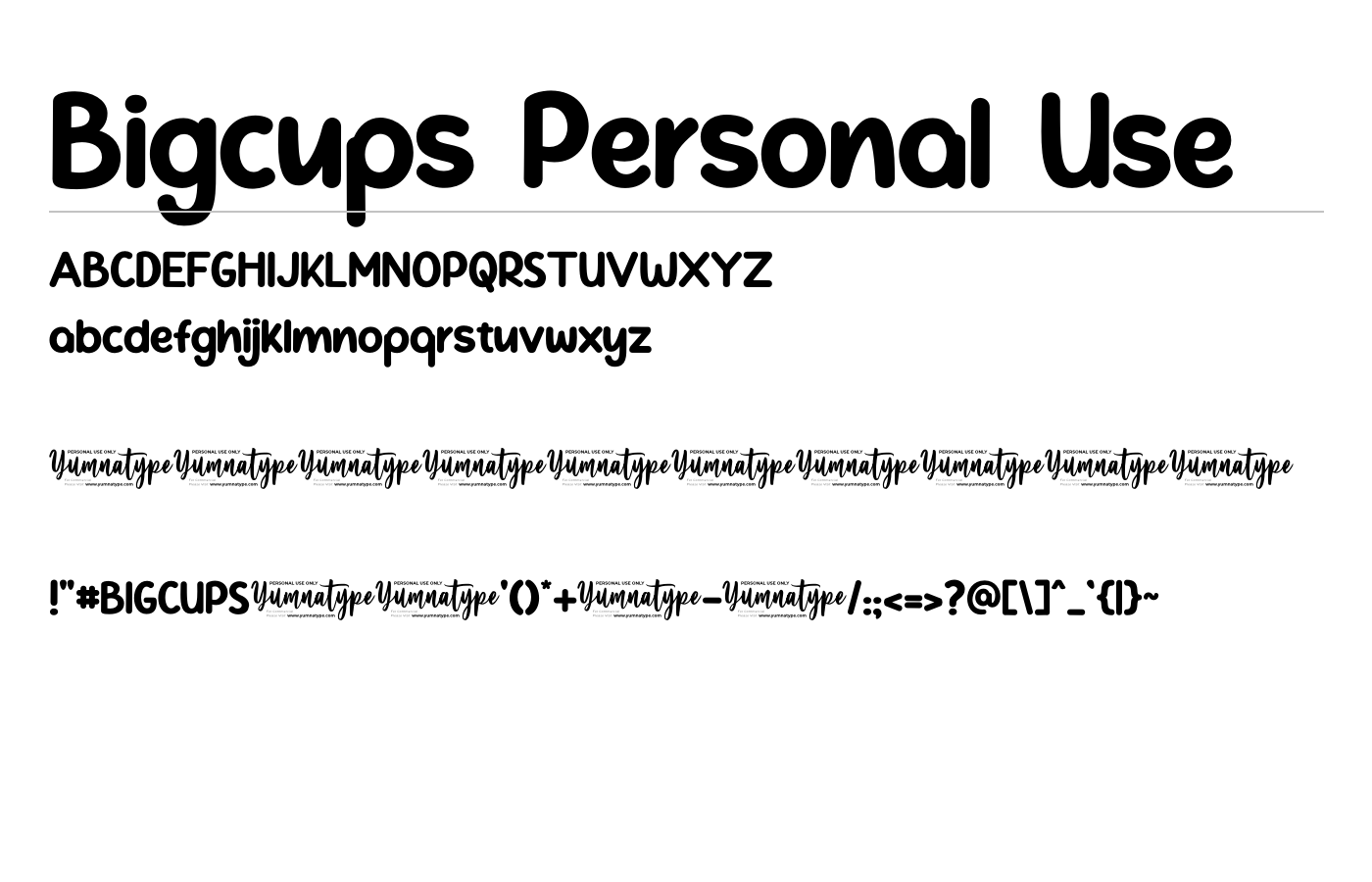
Bigcups Personal Use is a playful and rounded sans serif font with a friendly, informal vibe. Its moderately bold weight, consistent stroke width, and large x-height make it easy to read while adding a warm, approachable character, perfect for casual branding, children's materials, or fun headlines. This font works well in projects that seek a cheerful and lively tone, offering clarity while maintaining a unique personality.
Bigcups Personal Use Font
About Bigcups Personal Use Font